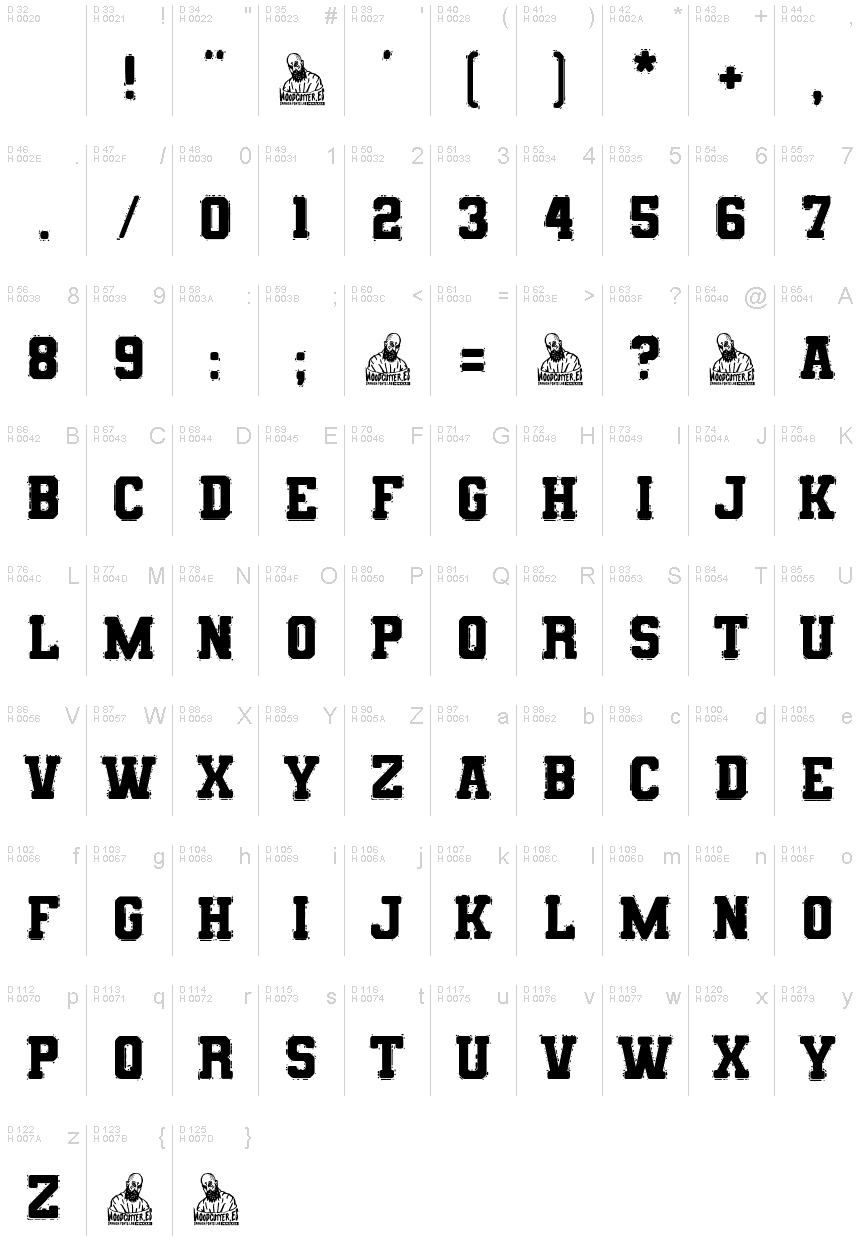
Tennessee College
Tennessee College, designed by Woodcutter, is a captivating display font that exudes an old-school distorted charm. Its bold weight and unique style make it perfect for a wide range of projects.
Use it to add a vintage touch to your classic rock band posters or create eye-catching headlines for your retro-themed event flyers. Tennessee College will also bring character to your tattoo parlor logo or give a distinctive edge to your skateboard brand's packaging design.
With its nostalgic appeal, this font is sure to turn heads and capture attention wherever it's used.